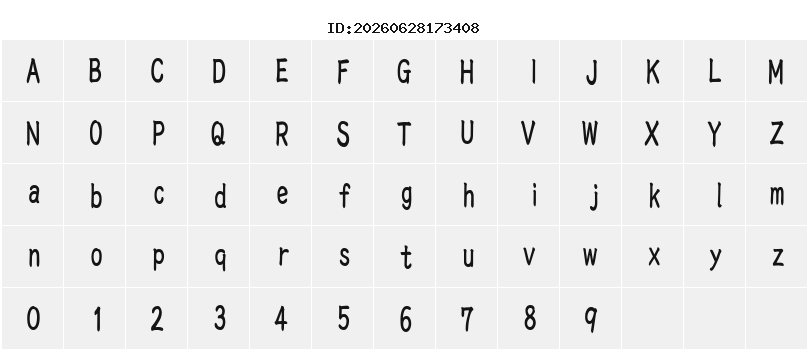
• Font Name: 白舟極太楷書
• Full Font Name: 白舟極太楷書
白舟極太楷書.ttf is a modern, elegant sans-serif font designed for ultimate readability and visual harmony. Perfect for branding, headlines, web design, and print materials.